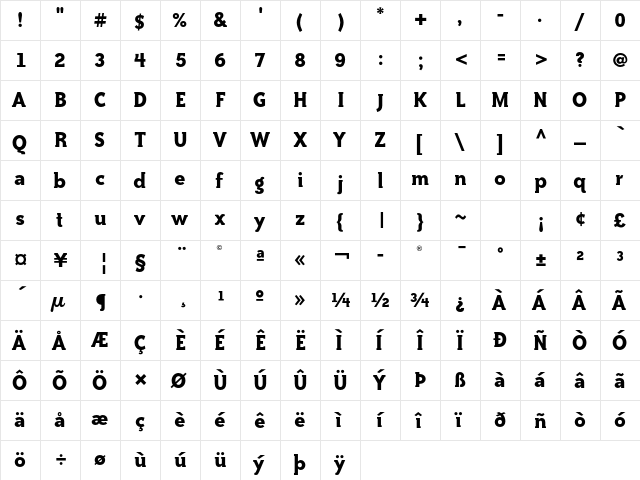
Bailey Quad Bold ITC Std Regular
| Designer | Kevin Bailey |
Design Context for Bailey Quad Bold ITC Std Typeface
Bailey Quad Bold ITC Std is a composed and adaptable typeface that performs quietly and consistently across a wide range of design contexts. The heavy weight commands attention and anchors typographic hierarchies.
Pro Tip: Pair Bailey Quad Bold ITC Std with a font of contrasting weight or personality to build a more expressive typographic hierarchy.